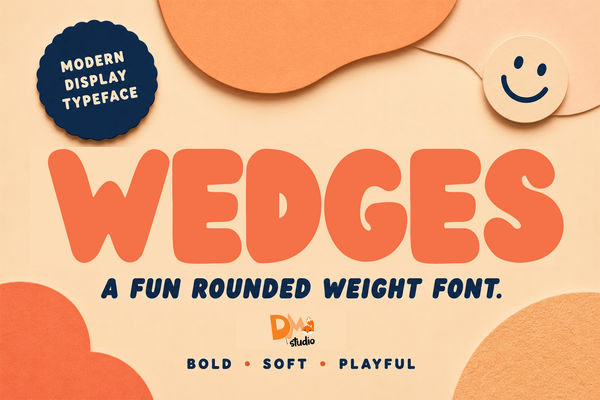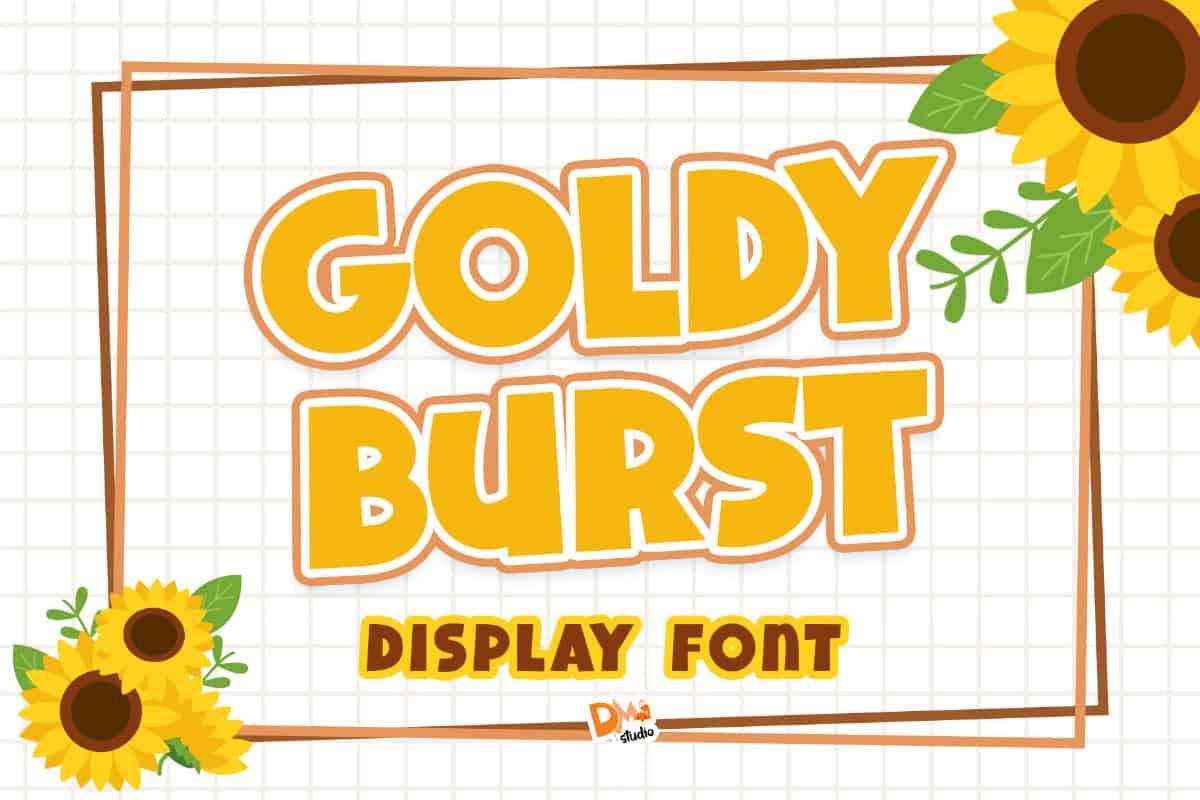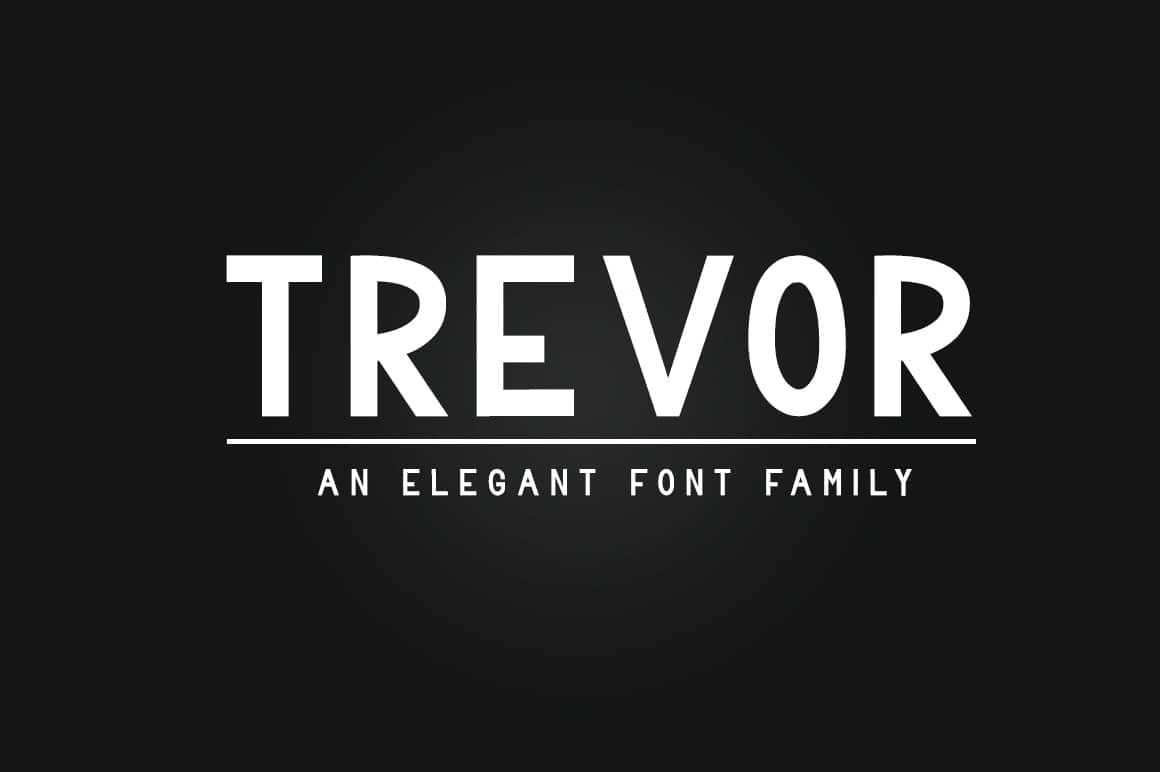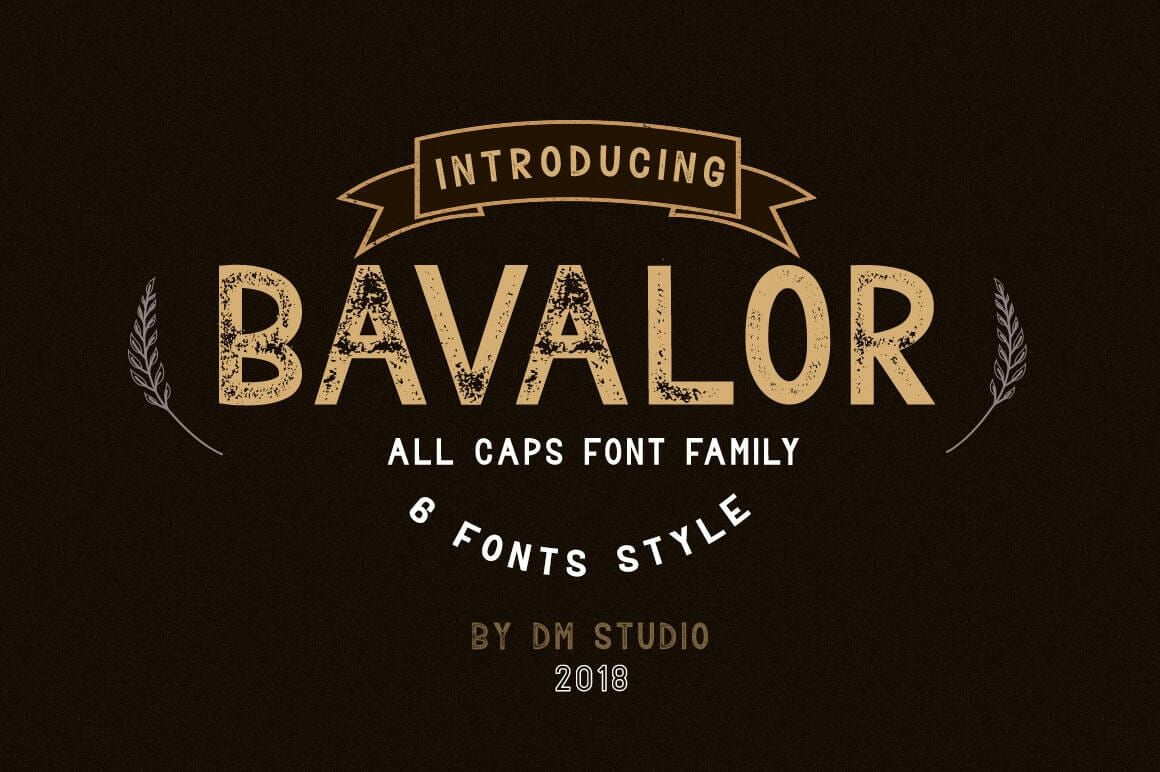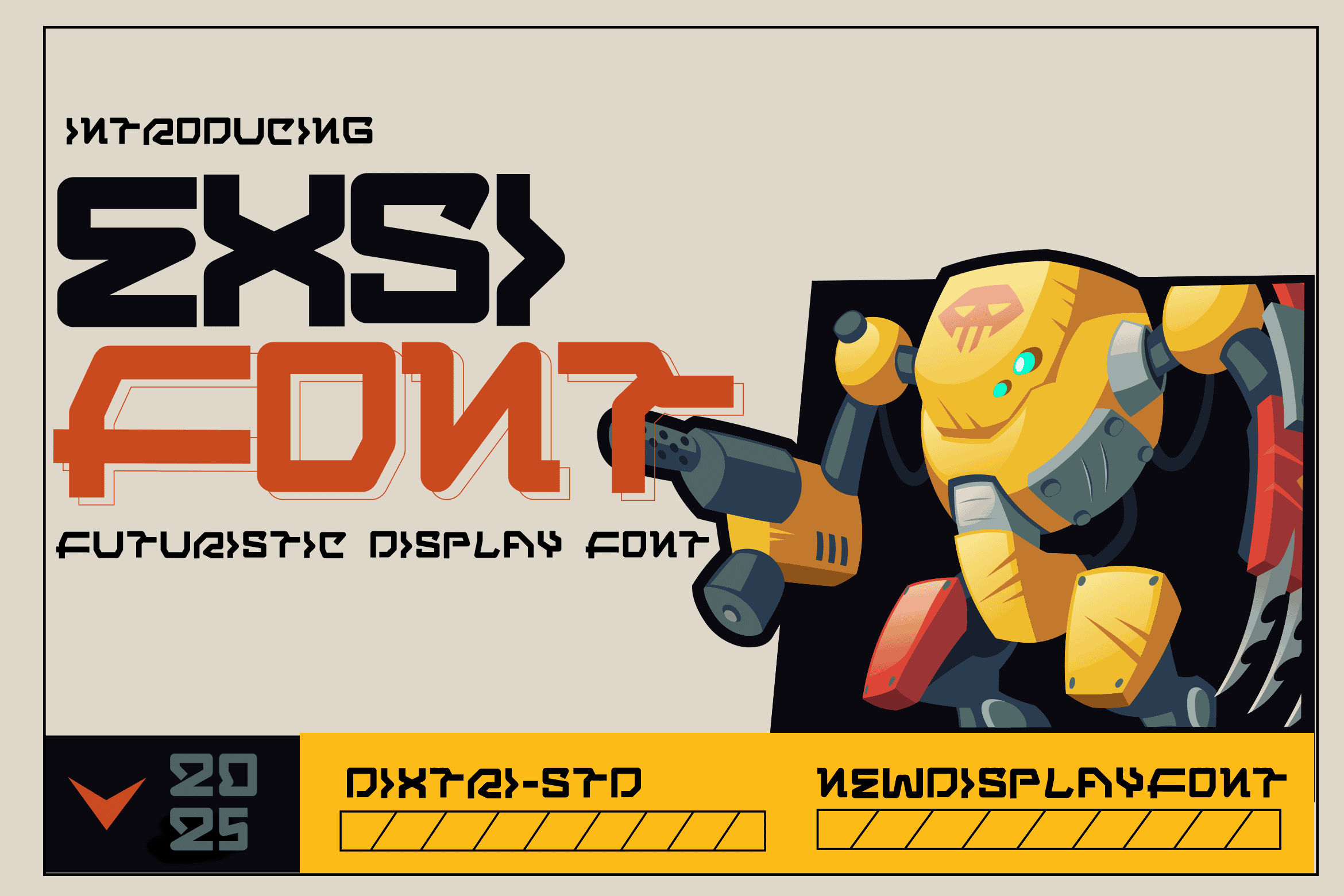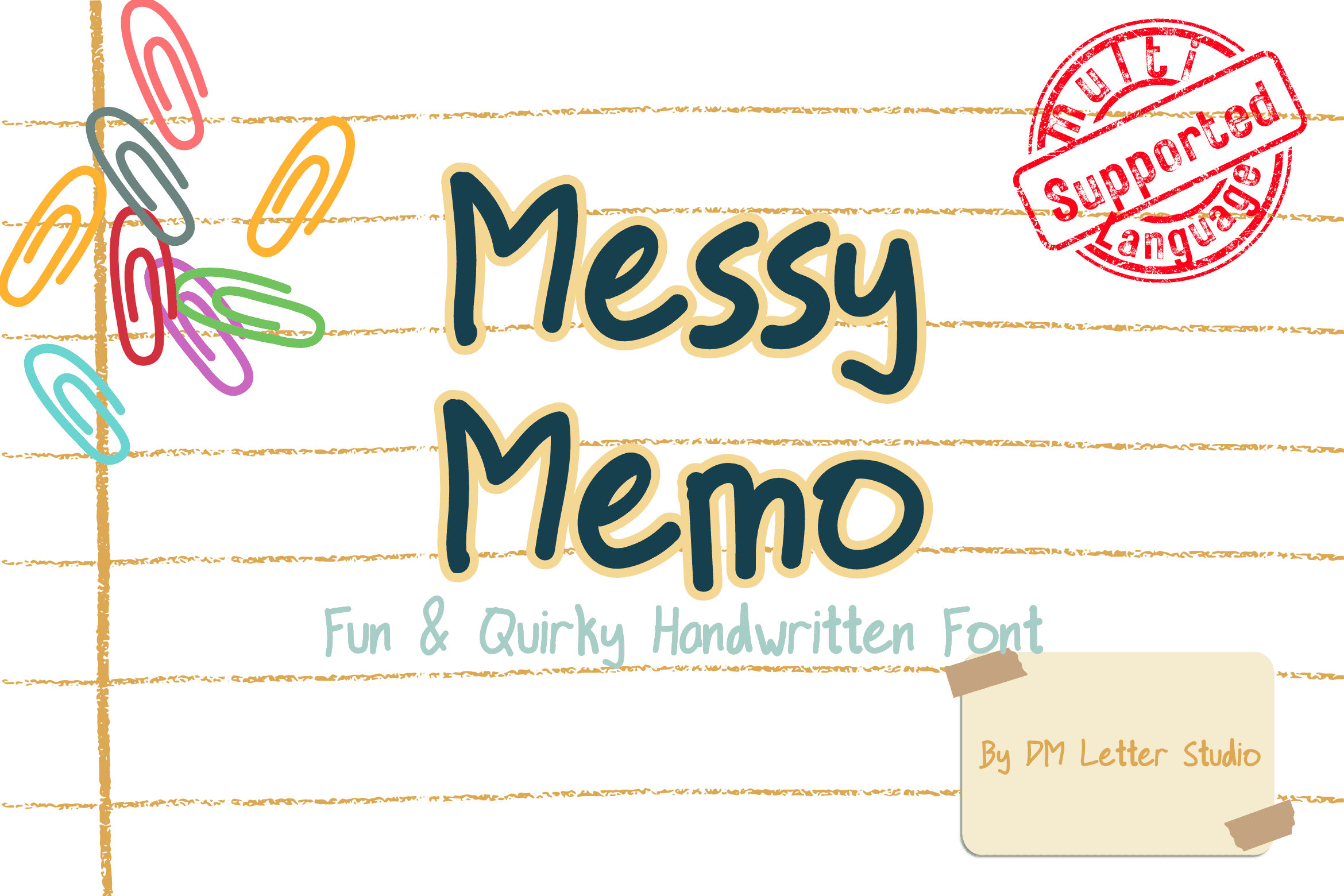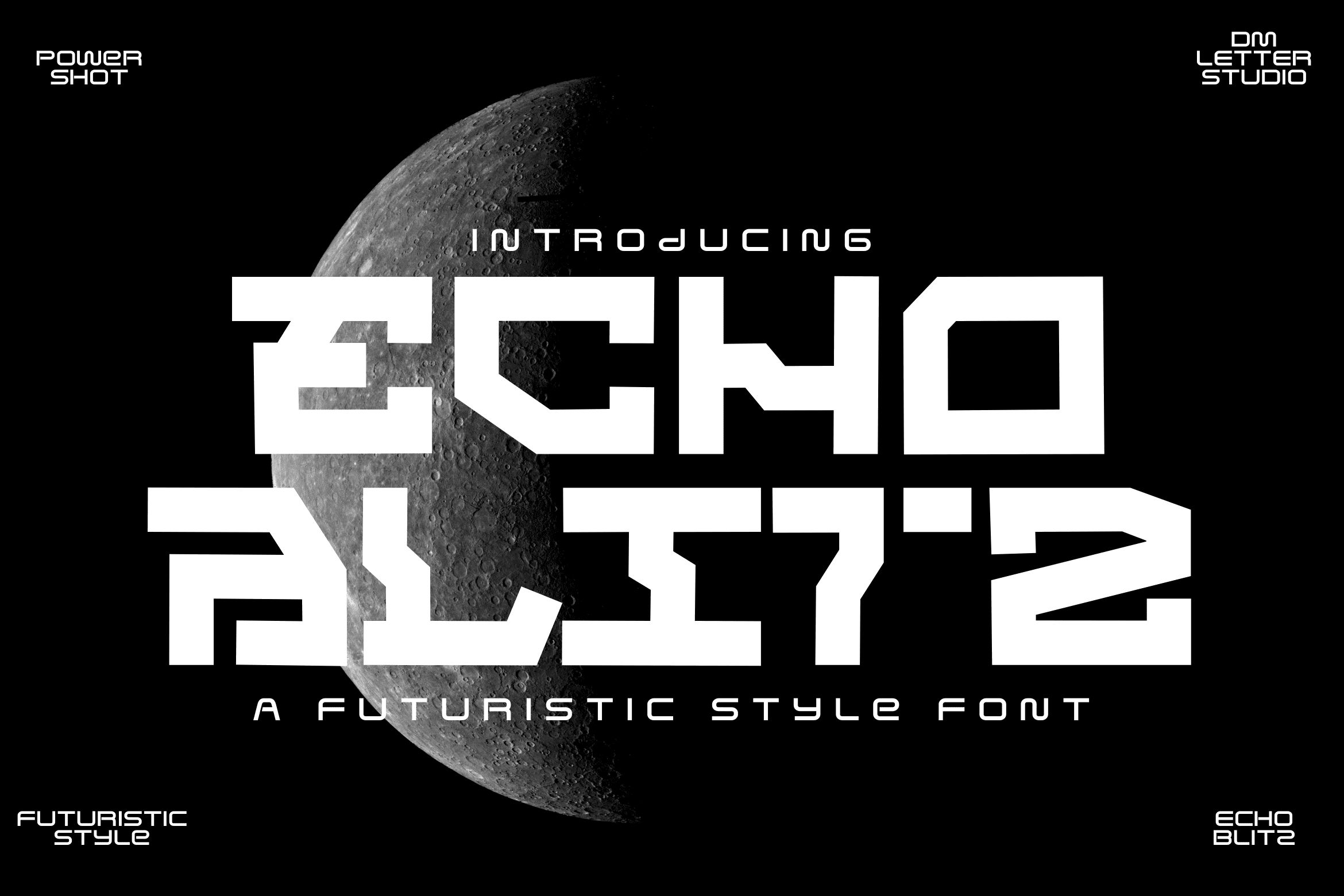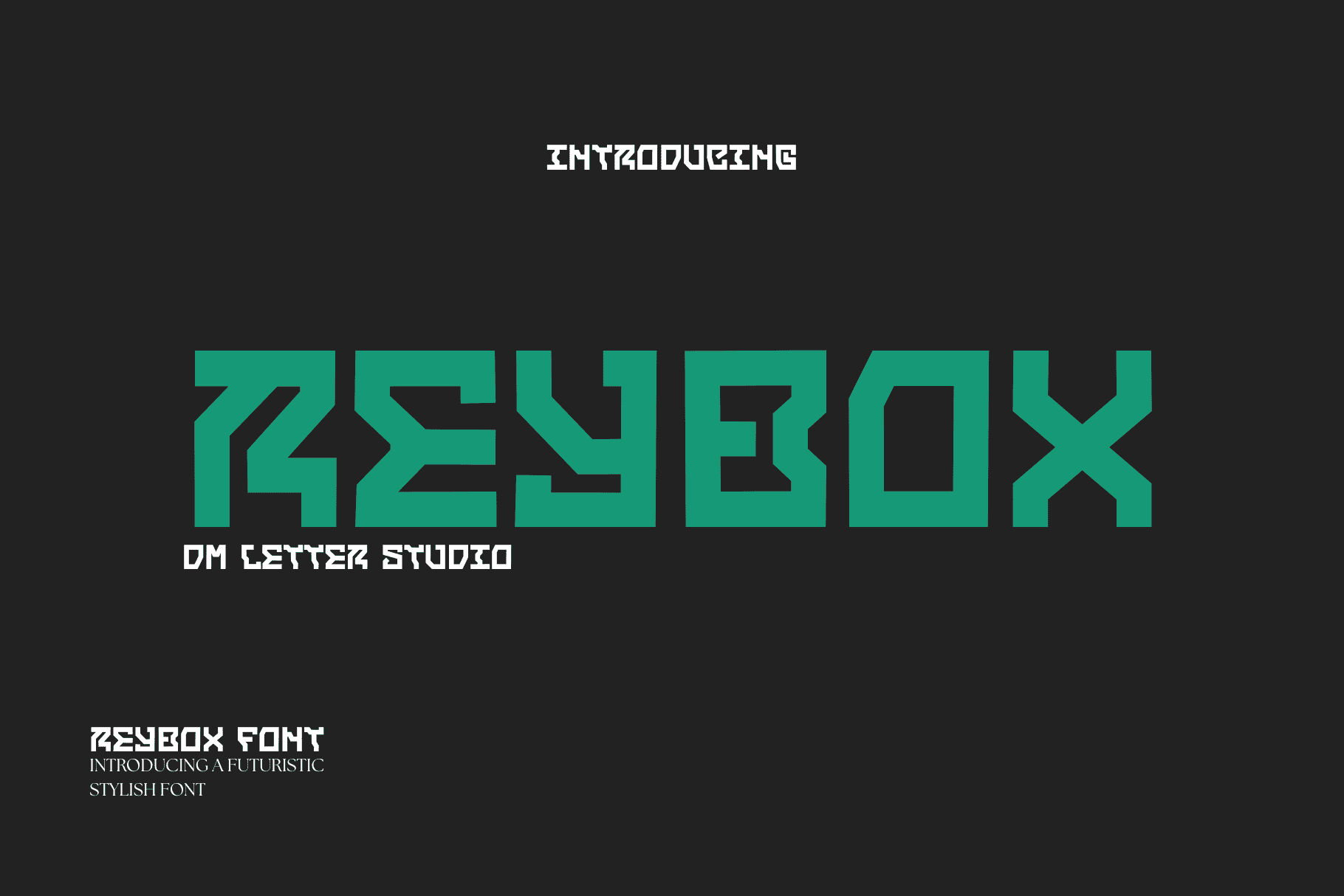
In this article, we explore the essential technologies that make digital investigations possible, and how you can present your findings with visual flair using handpicked font pairings inspired by the image above. This blend of forensics and design ensures your presentations, reports, and infographics not only inform but also impress.
Crucial for identifying malware or hidden processes in volatile memory.
• Volatility
• Rekall
• Belkasoft RAM Capturer
Presenting Digital Findings: Font Pairing Recommendations
To make your cyber reports, infographics, or courtroom slides clearer and more professional, typography matters. Based on the font pairing image you shared, here are some excellent font duos to elevate your investigative designs:
Font Pairing 1: Melvick + Trevor
• Use for: Formal forensic reports
• Why: Melvick offers legibility, while Trevor adds a techy, code-like vibe that’s perfect for digital forensics.
Font Pairing 2: Echo Blitz + Exsi
• Use for: Cybersecurity dashboards or data visualizations
• Why: Strong, geometric lines that evoke structure and control.
Font Pairing 3: Bavalor + Bright South
• Use for: PowerPoint presentations, tech articles, or case reviews
• Why: Combines modern readability with tech-industry flair.
Font Pairing 4: Wedges + Messy Memo
• Use for: Infographics summarizing findings
• Why: Balances technical with editorial for visual clarity.
Font Pairing 5: Reybox + Goldy Burst
• Use for: Case exhibits or lab results
• Why: These fonts enhance readability for both tech and legal audiences.
Use Case Example: How These Tools Work Together
Let’s say a company experiences a suspicious data breach:
1. Disk Imaging is used to clone the employee’s laptop for analysis.
2. RAM Forensics uncovers a suspicious process tied to unknown software.
3. Network Forensics traces data packets sent to an unfamiliar IP.
4. Email Analysis shows unauthorized file transfers to the user’s personal Gmail.
5. Mobile Device Tools uncover chat messages where the plan was discussed.
All these tools operate in harmony, showcasing how technology for unmasking cyber evidence brings together various layers of digital intelligence.
Benefits of Using the Right Cyber Tools
Accuracy
Forensic tools are designed to preserve the integrity of evidence.
Speed
AI integration allows faster identification of malicious data.